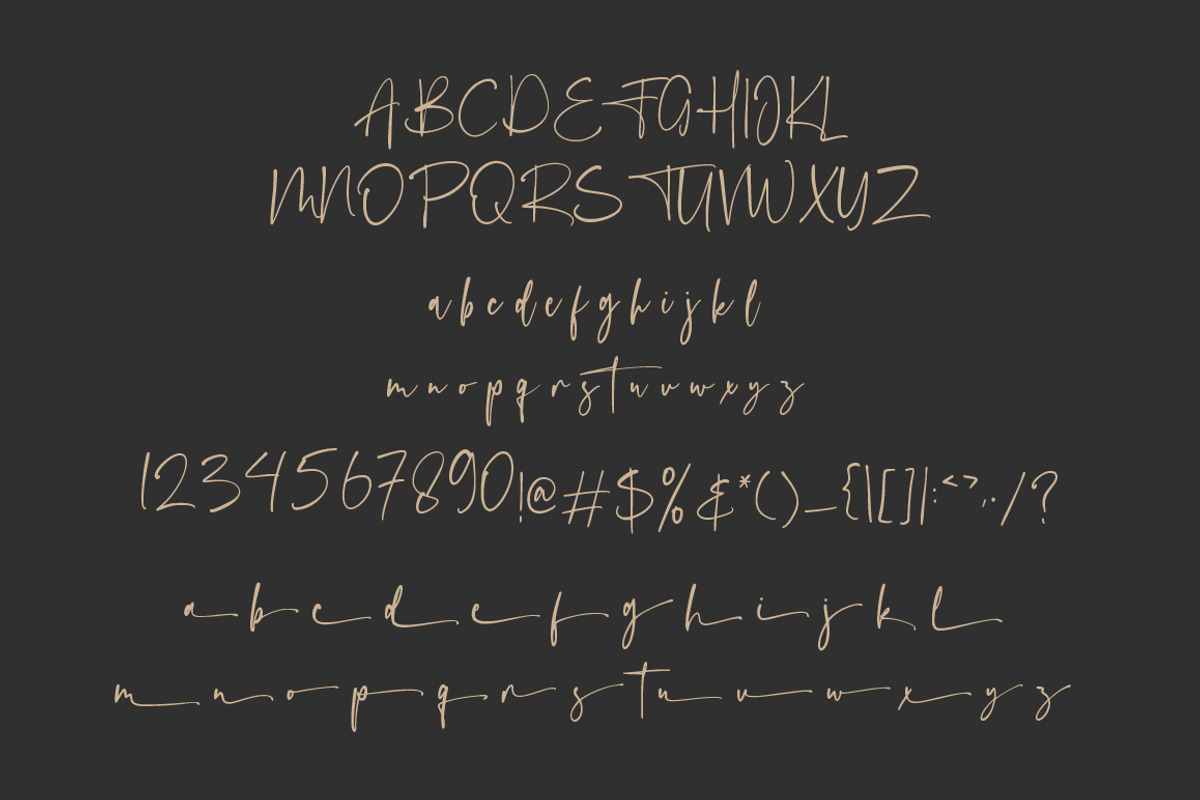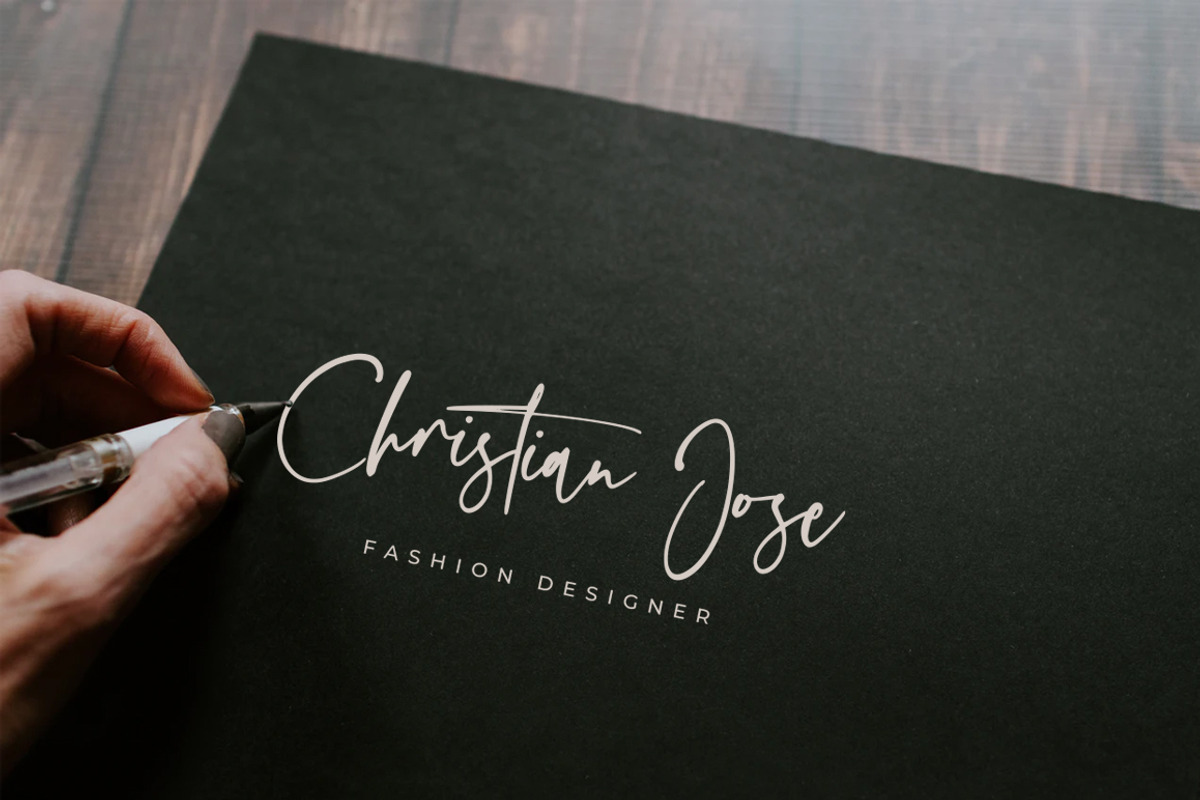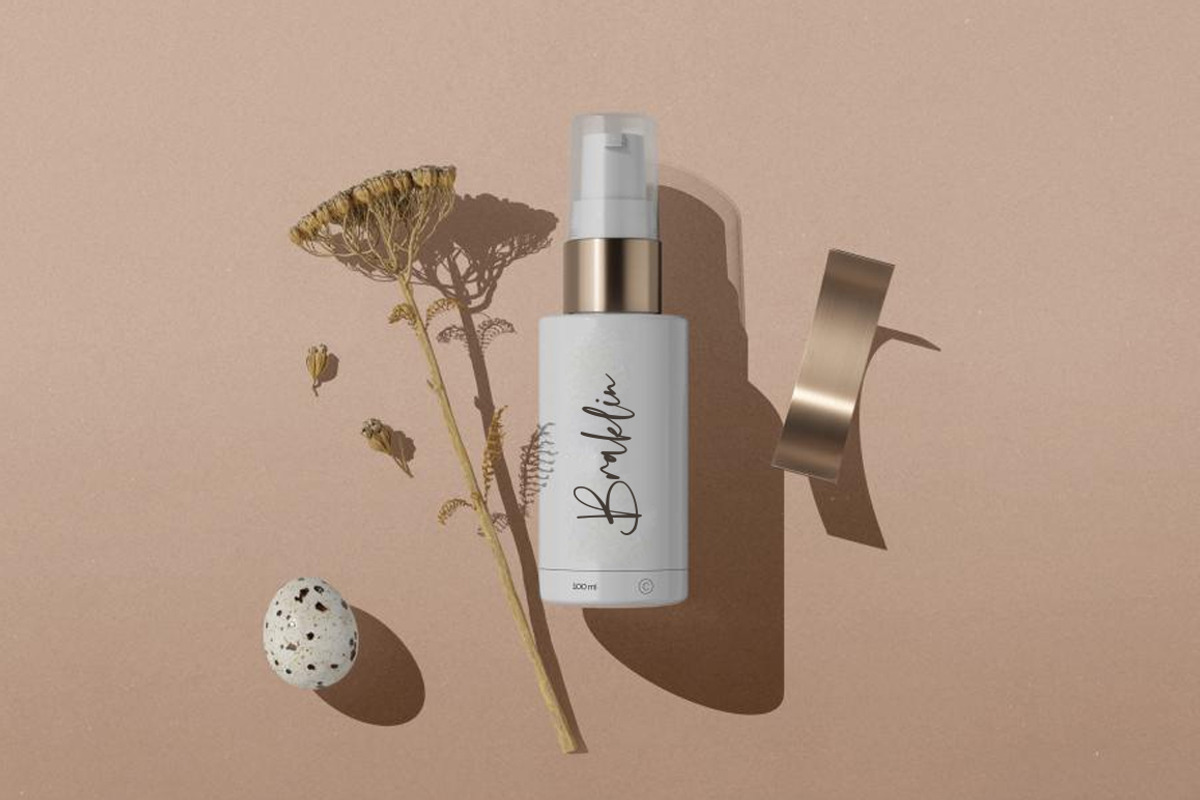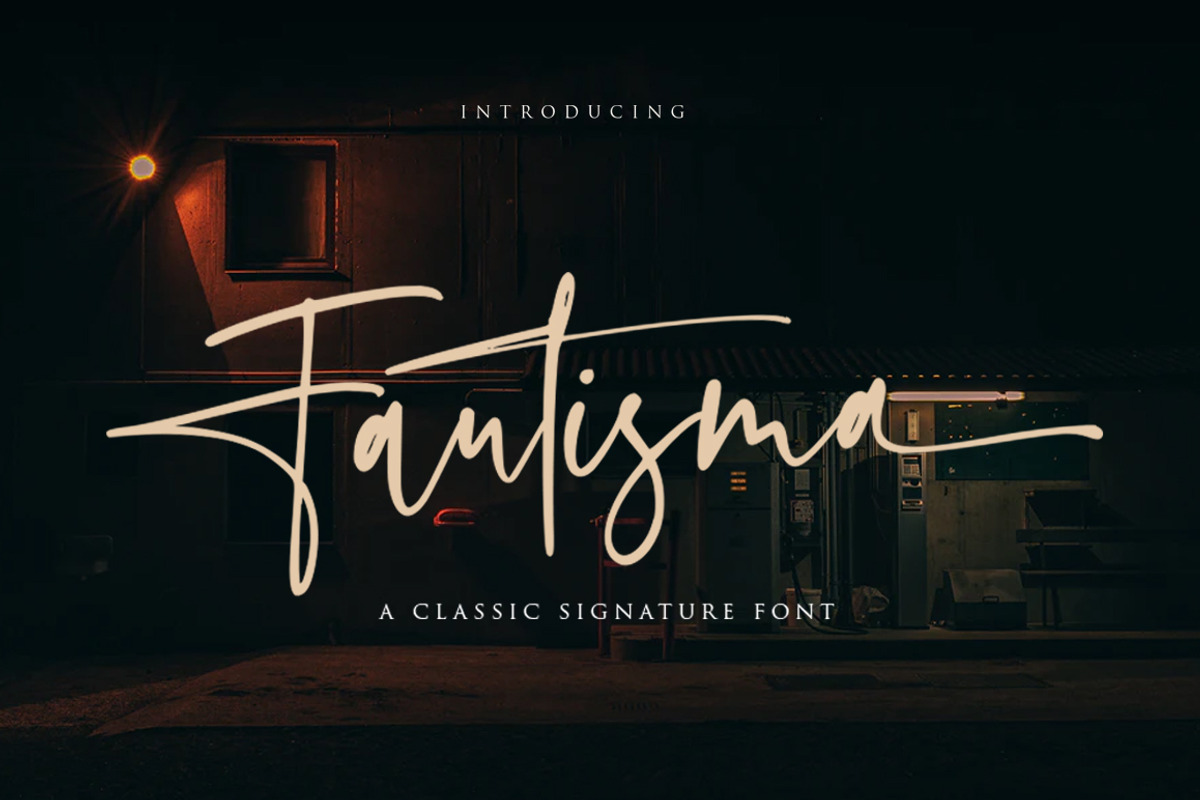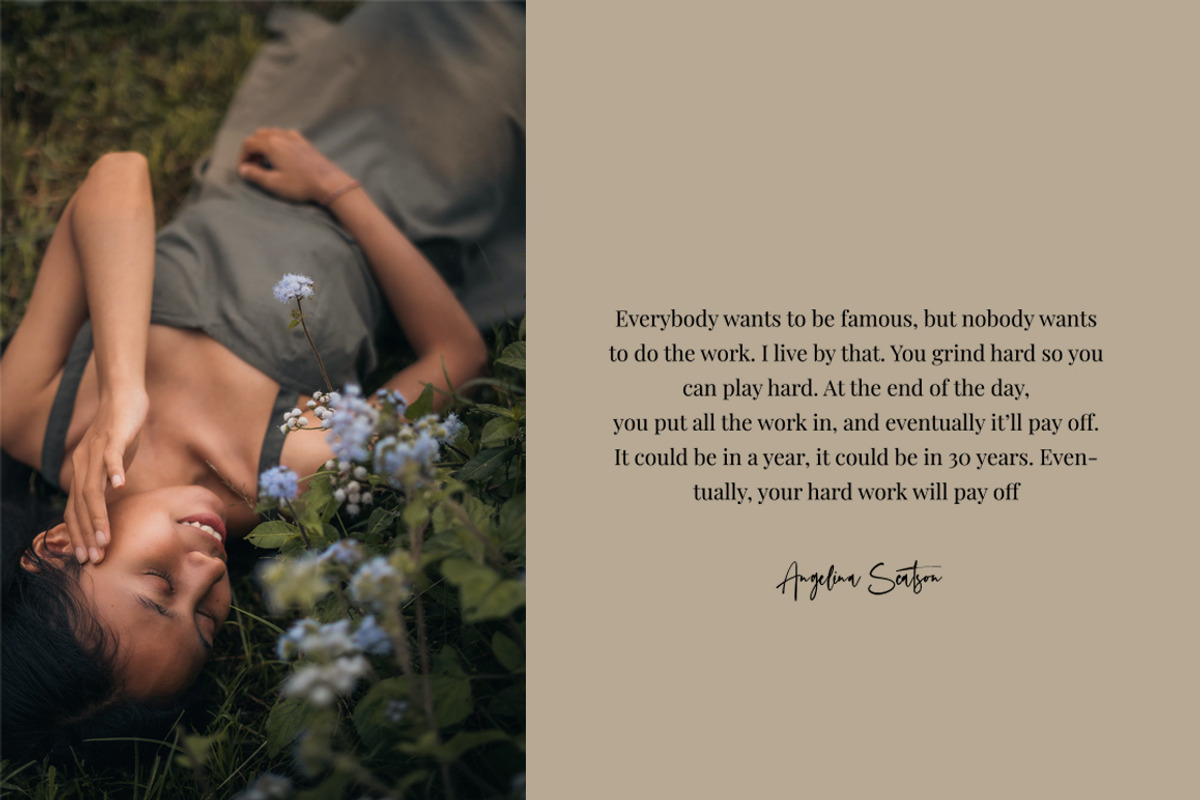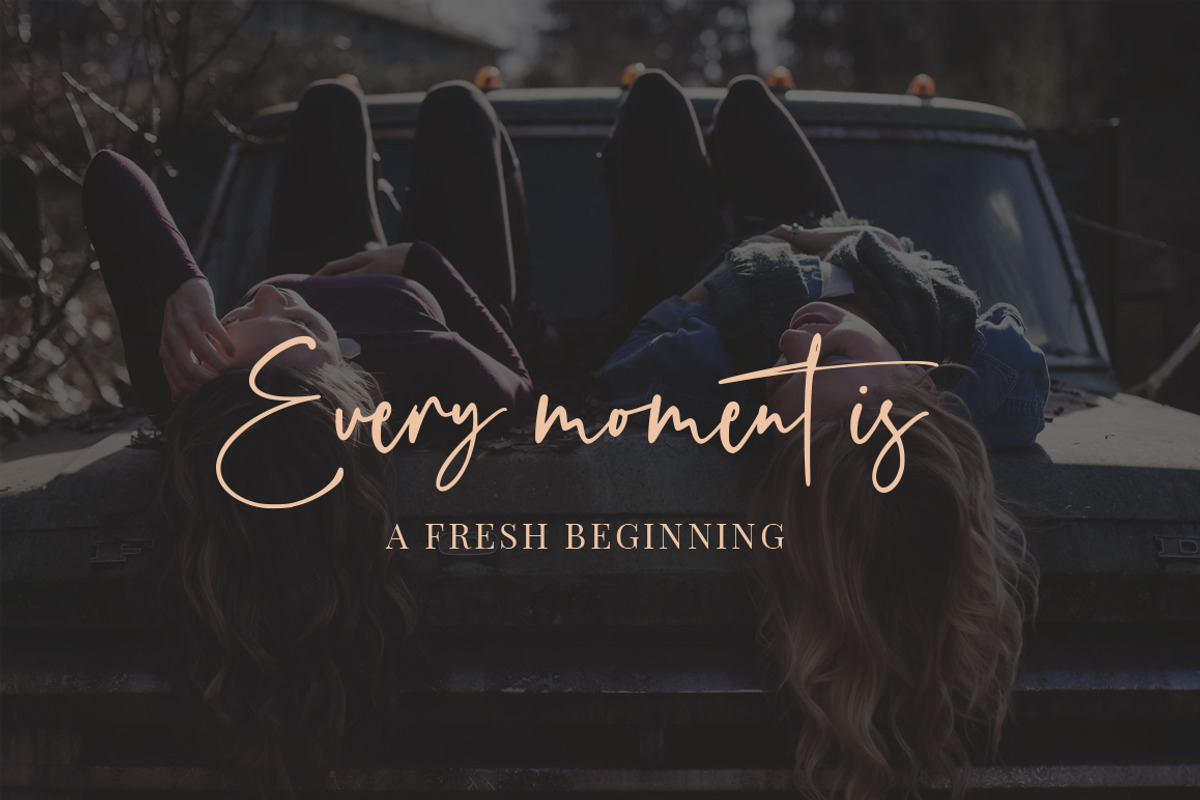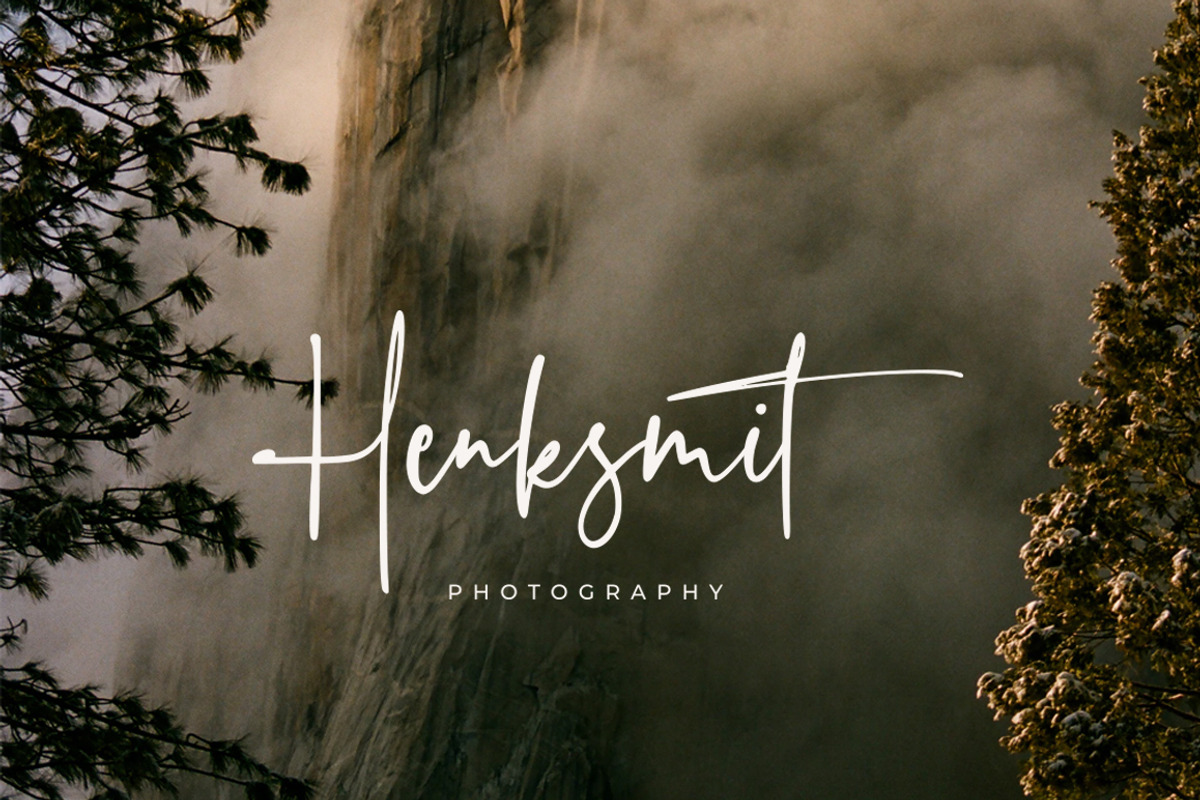
Faustima - Chic Signature Font
Faustima is cursive handwritten font, relaxed and timeless. Employ it to each of your creative designs and notice how they come alive!
- Uppercase + Lowercase Letters
- Numbers + Punctuation
- Ligature Feature